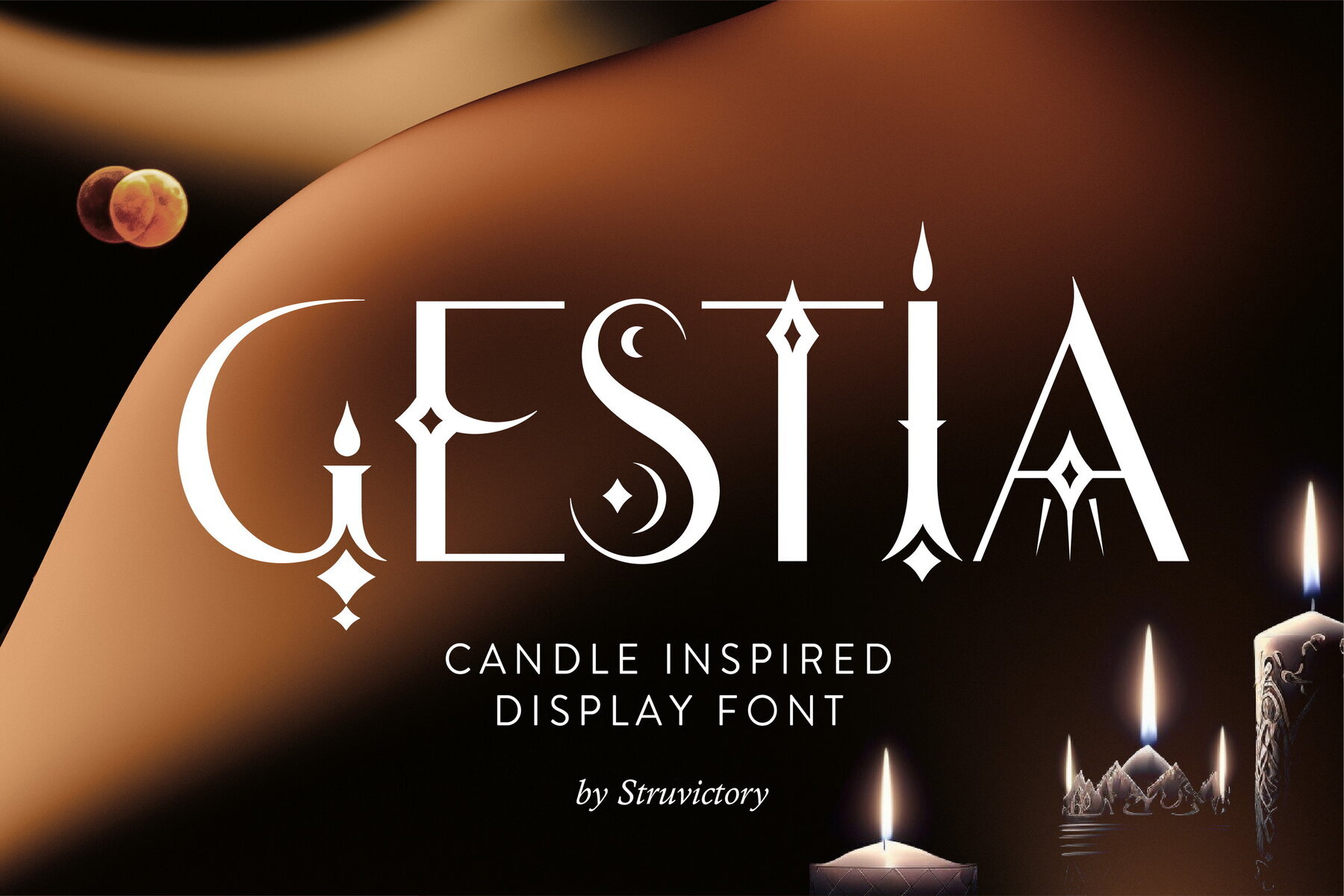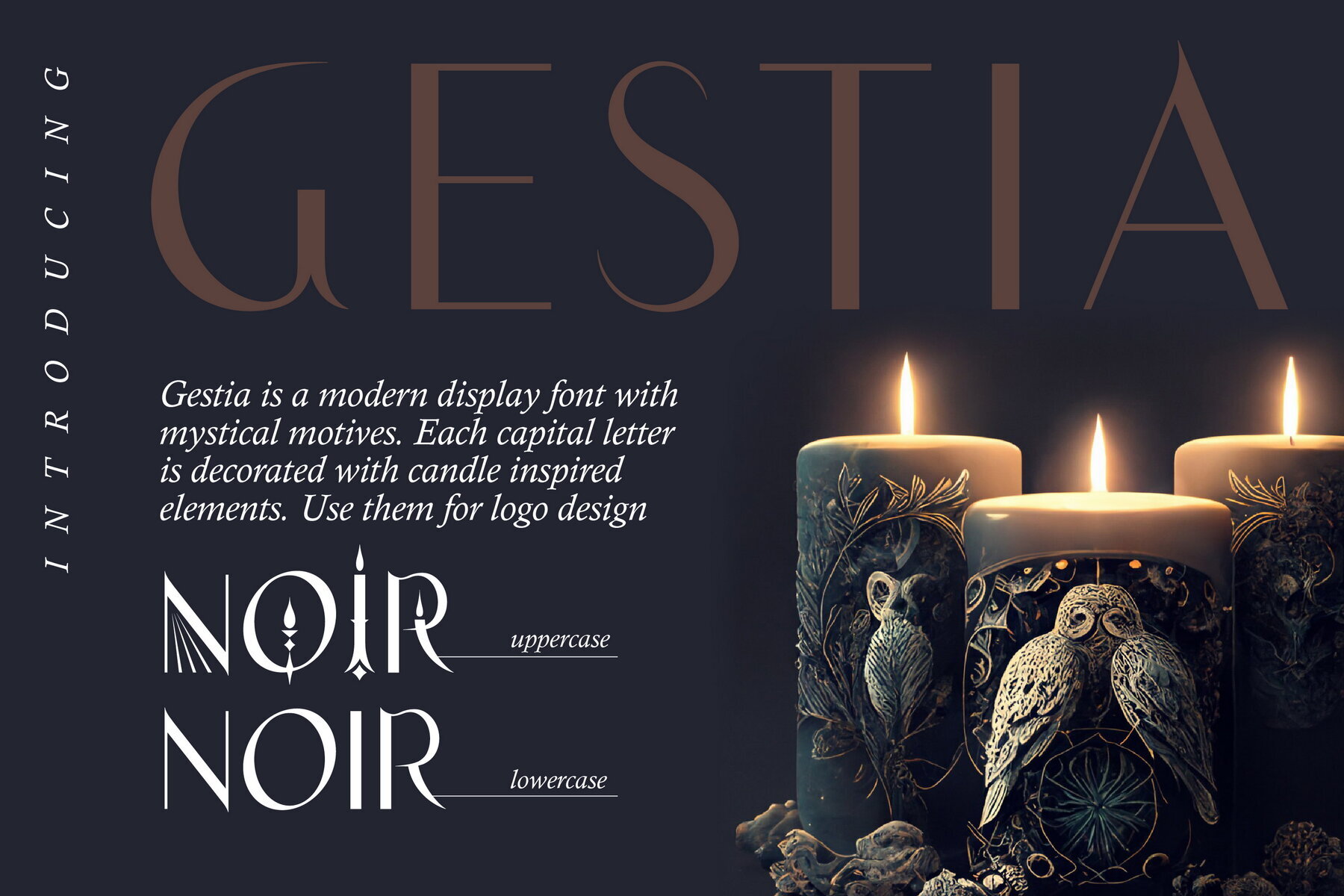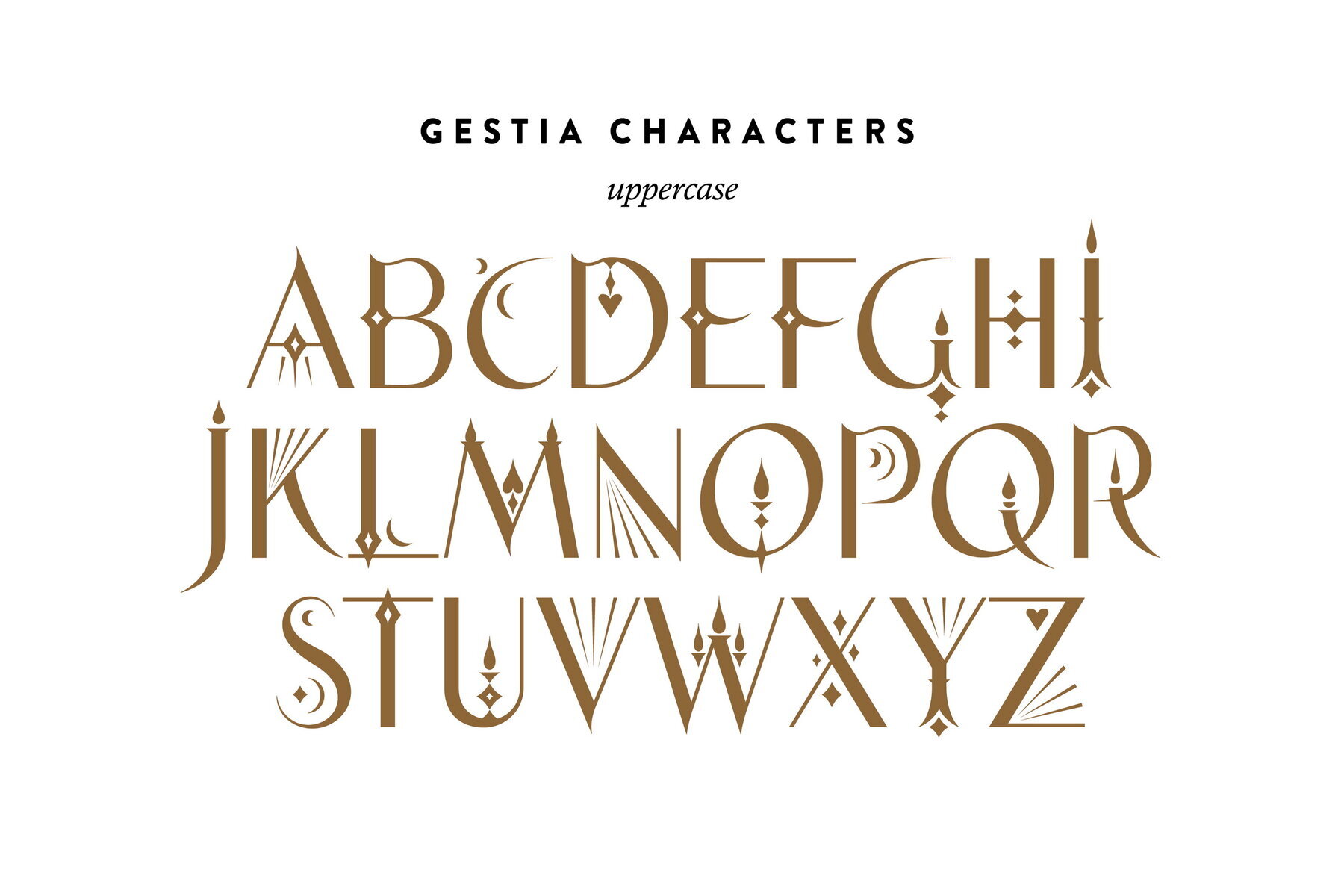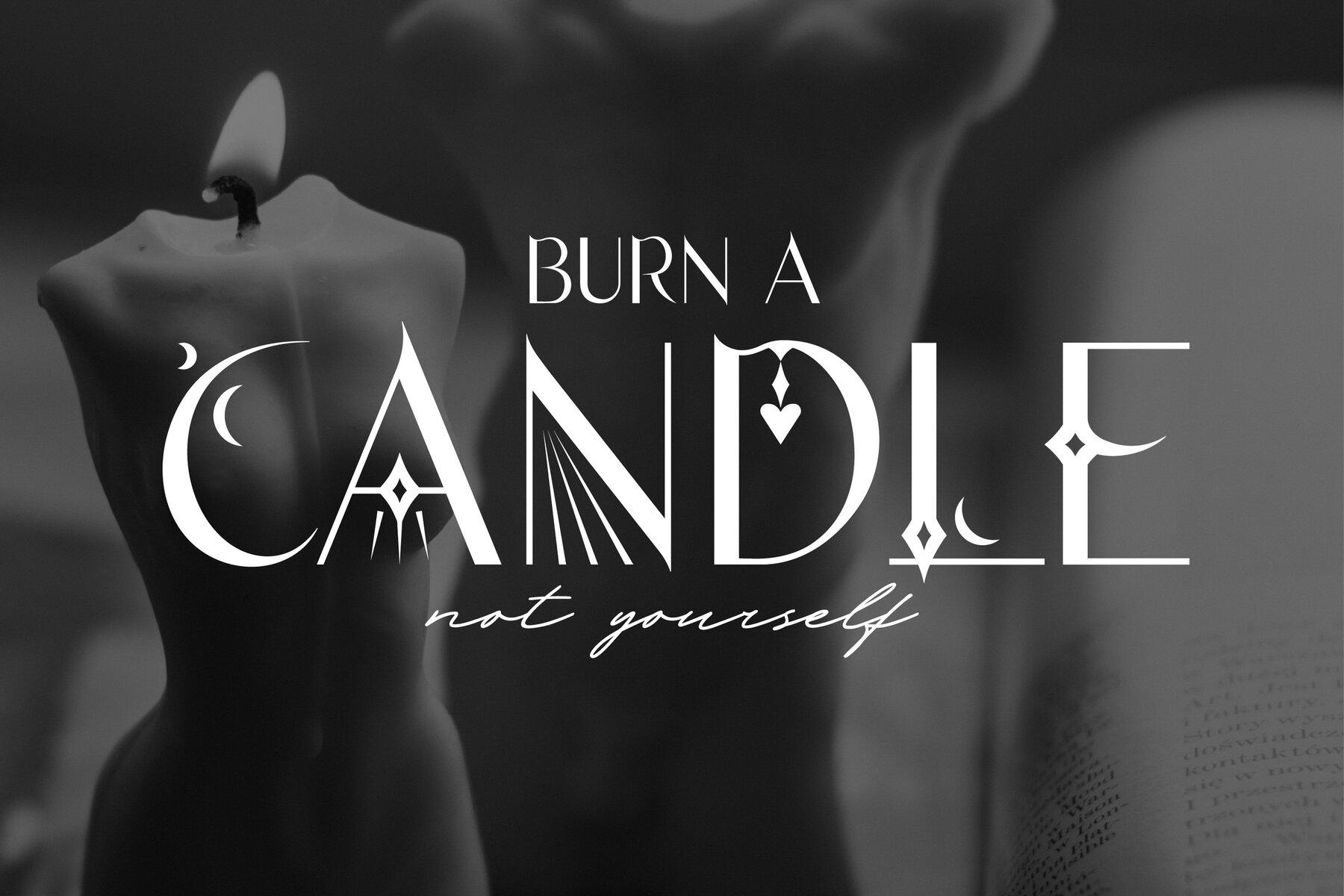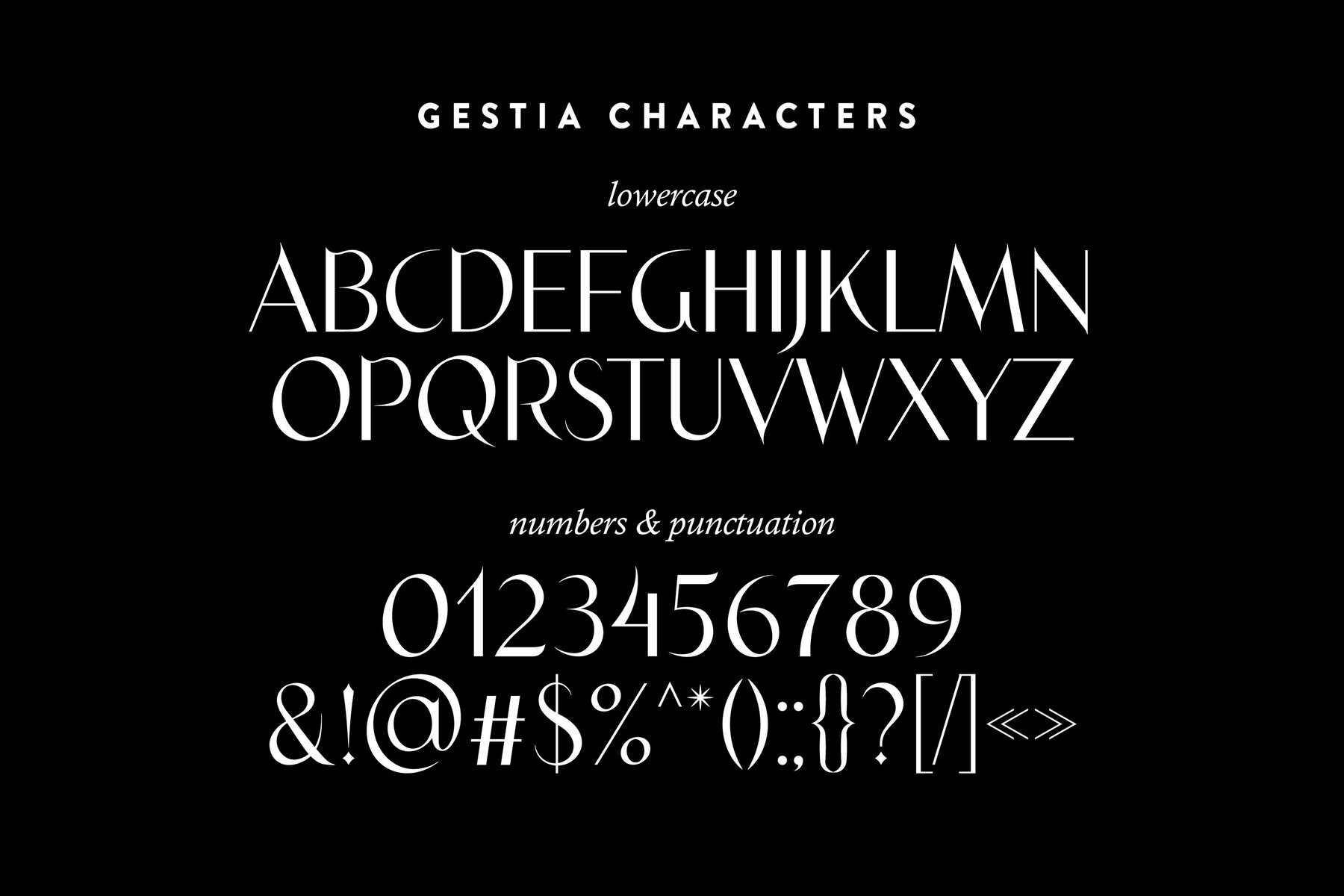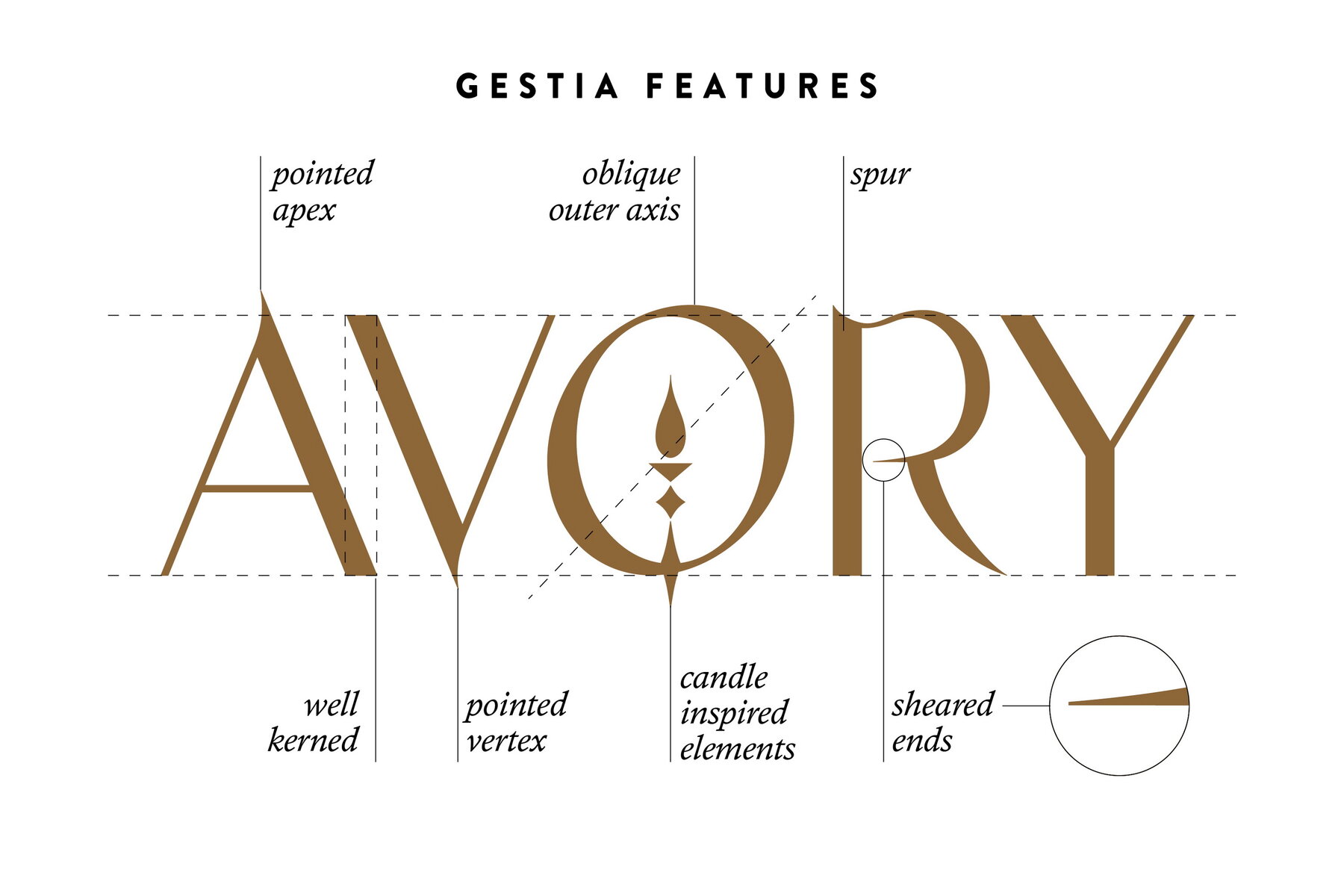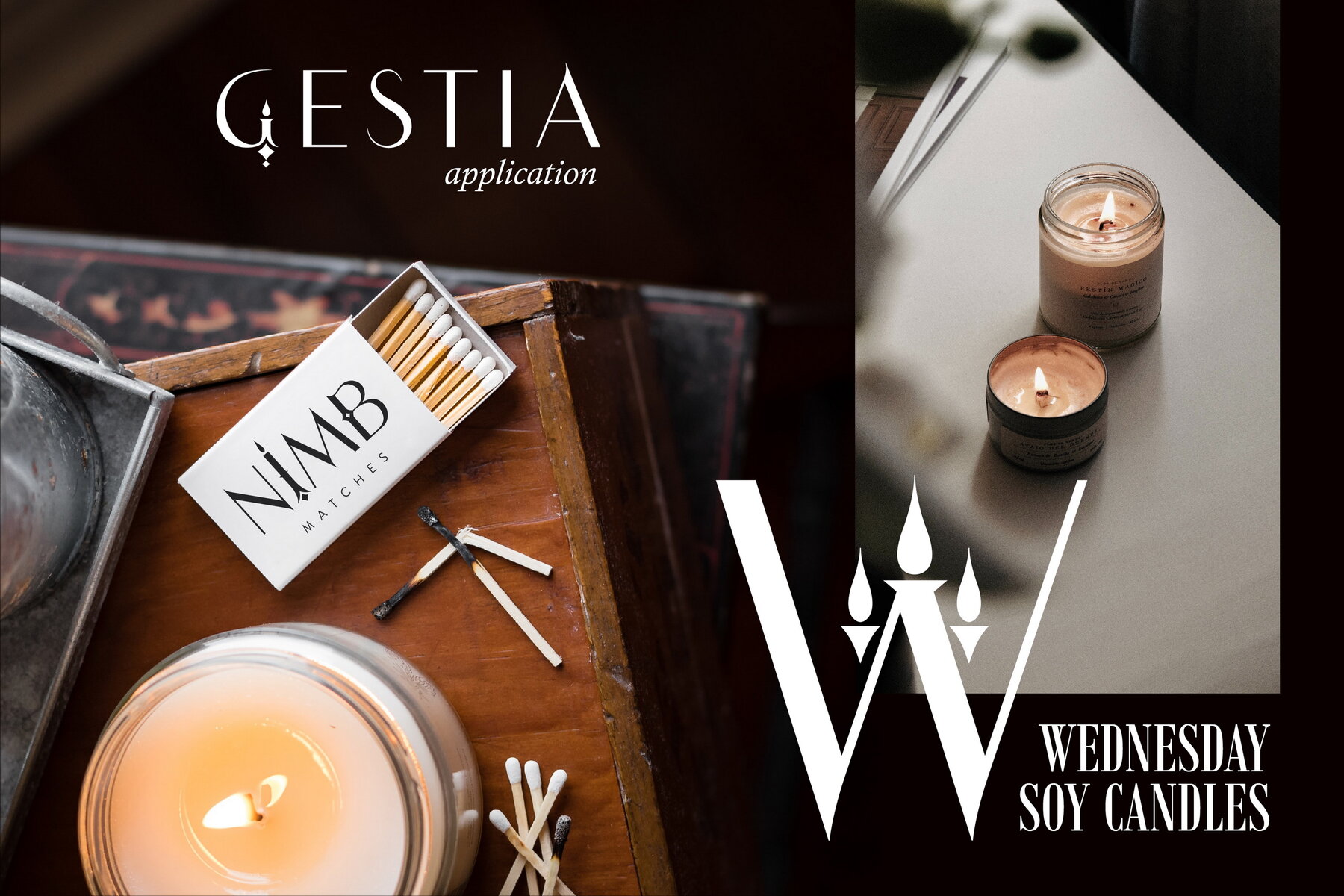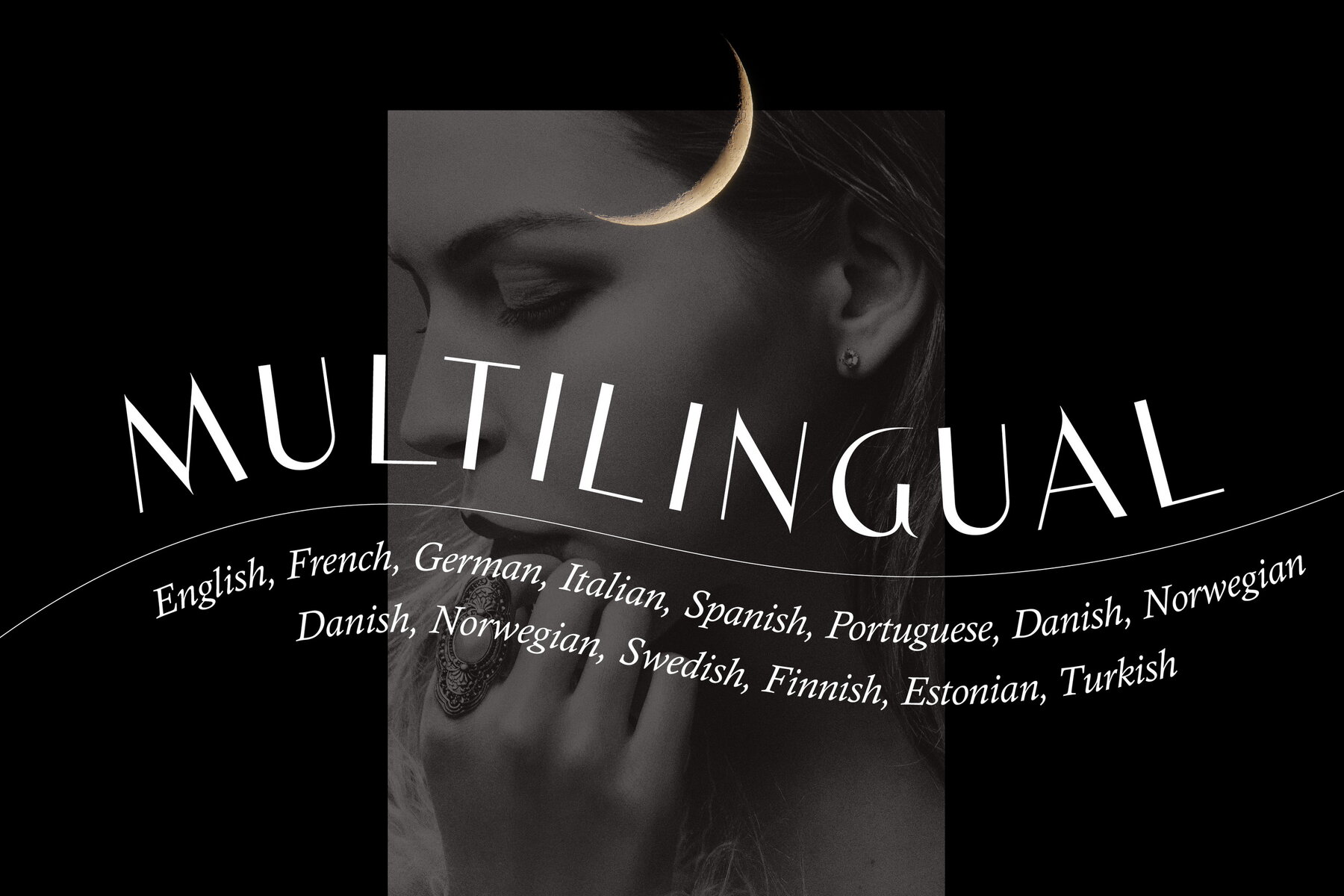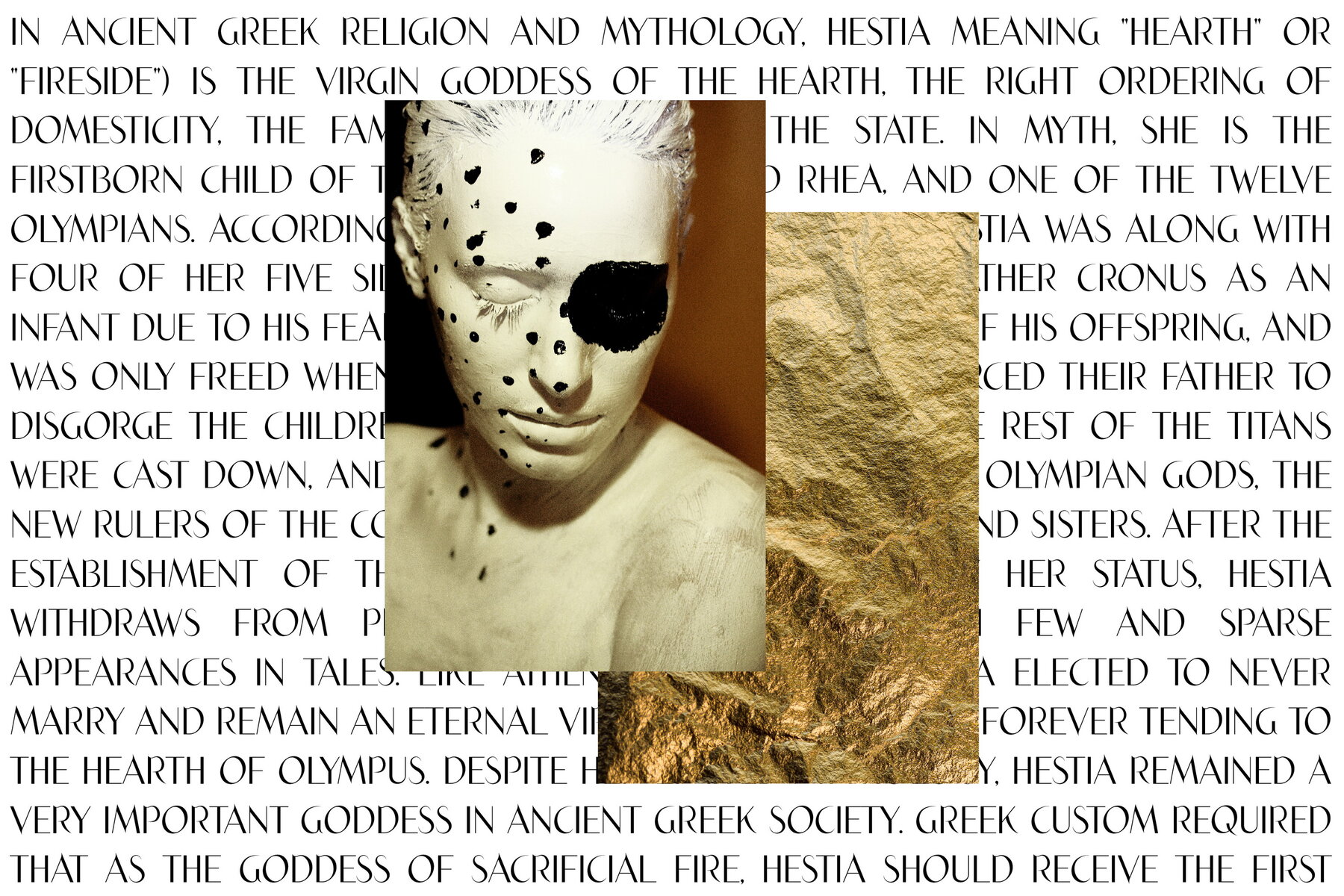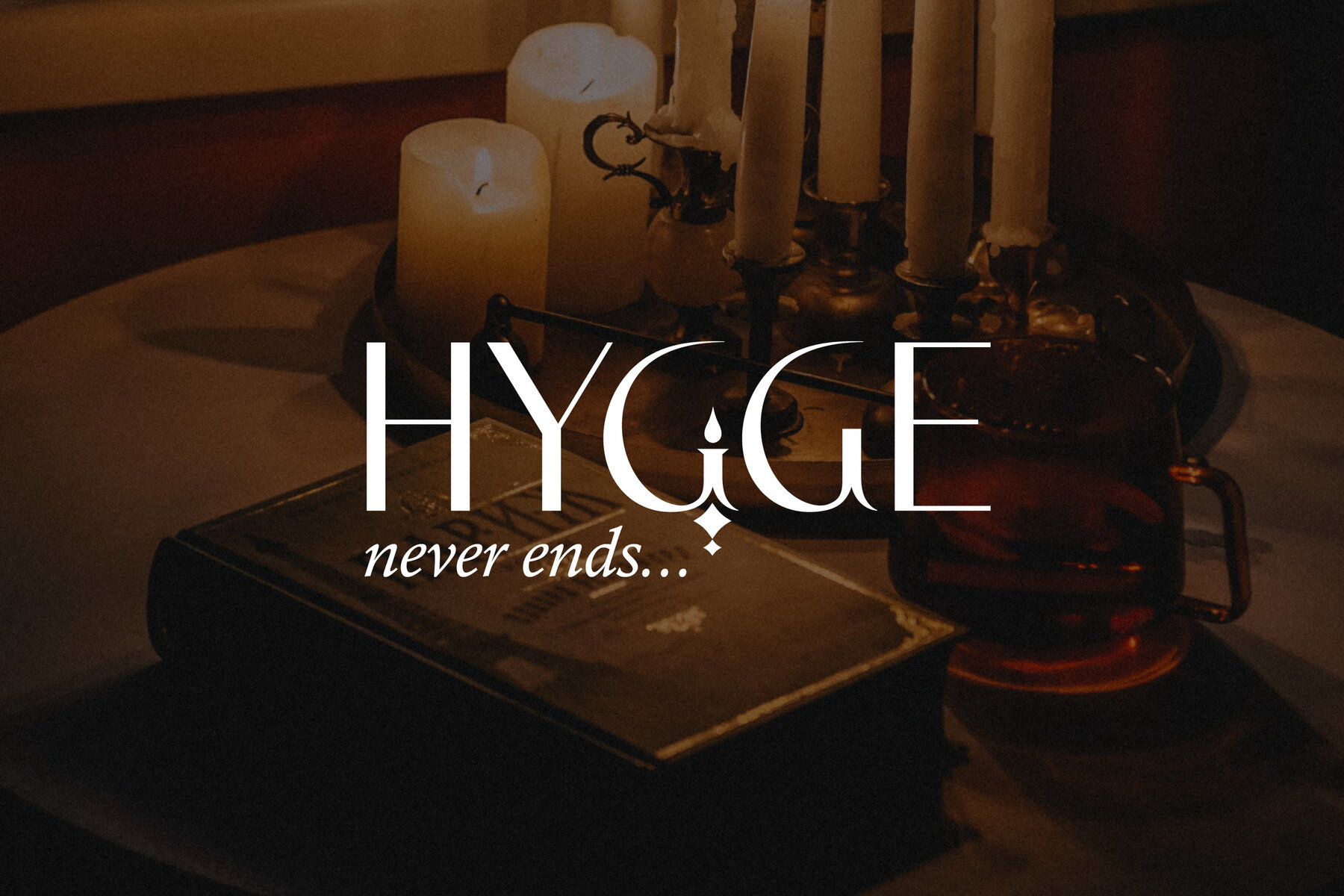
Gestia Font
Gestia Decorative
Gestia is a modern sans serif font infused with mystical elements. Crafted with classic proportions and adorned with candle-inspired decorations, this font features sans serif lowercase letters and ornate uppercase characters. It is perfectly suited for designs related to themes such as astrology, mysticism, spirituality, witchcraft, magic, and esotericism. Gestia offers extensive language support, including English, French, German, Italian, Spanish, Portuguese, Danish, Norwegian, Swedish, Finnish, Estonian, and Turkish. This modernist sans-serif display font is characterized by unique, stylized geometric shapes and sharp, clean lines. The ornamental details and high-contrast elements provide an edgy, futuristic appearance while maintaining the simplicity needed for a variety of artistic and sophisticated design projects.Gestia: Mystical Sans Serif with Candle Motifs
Design Features